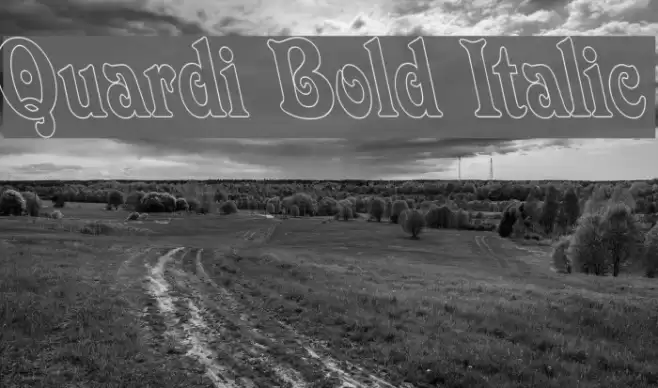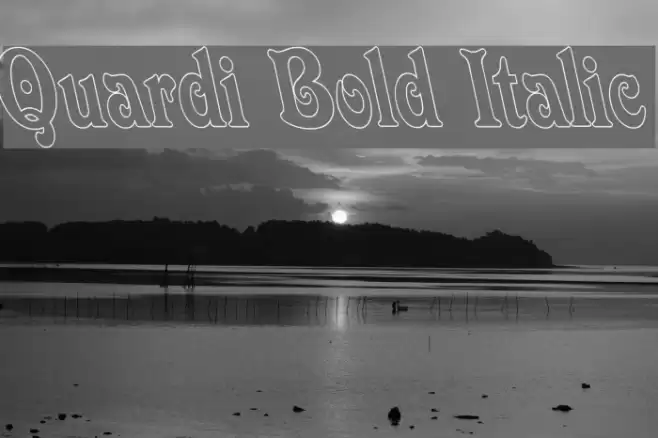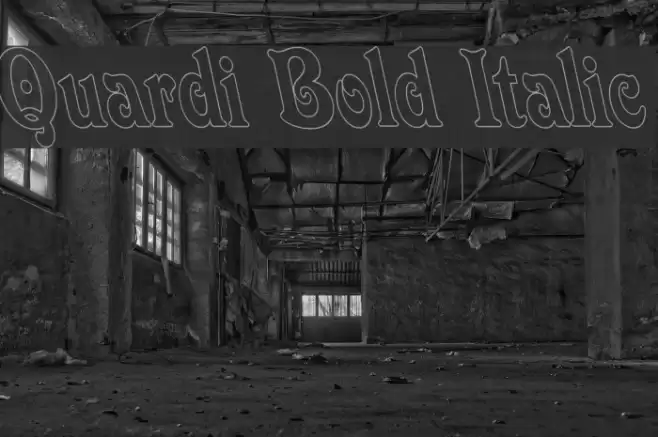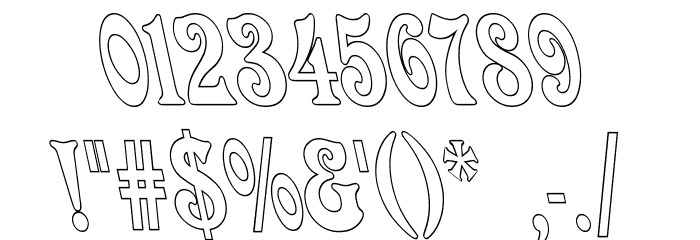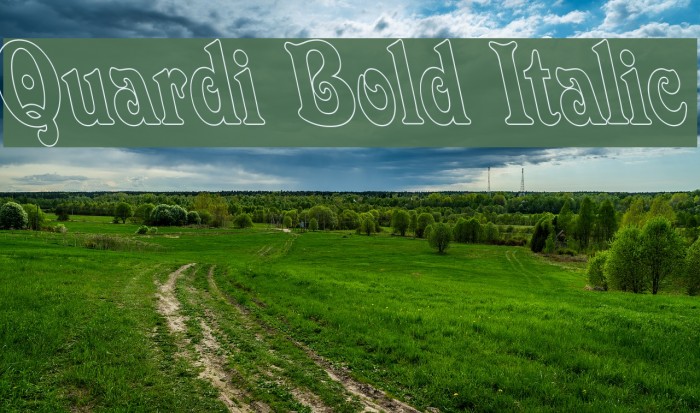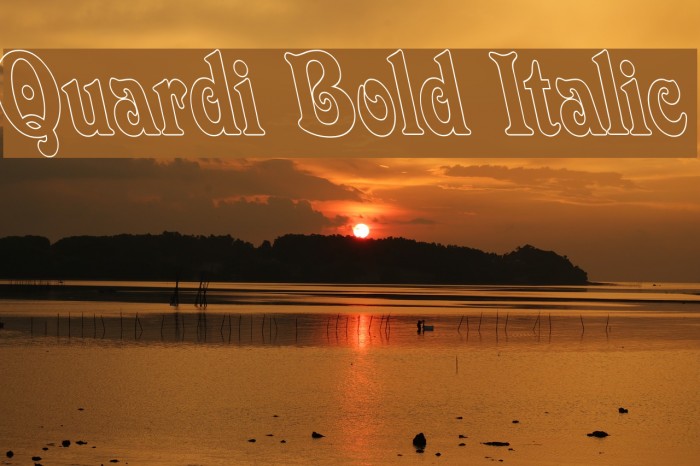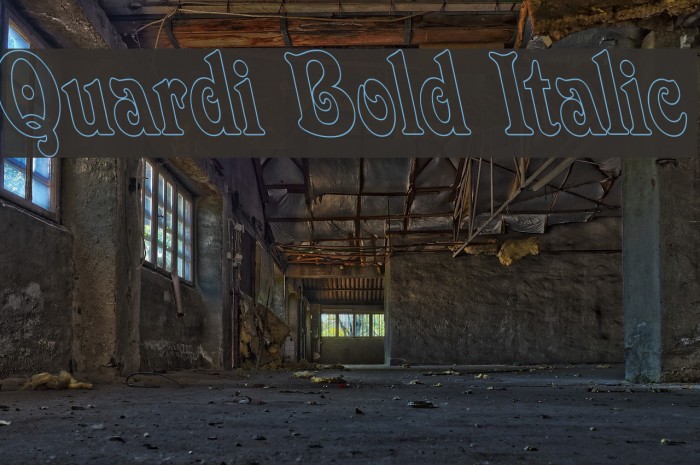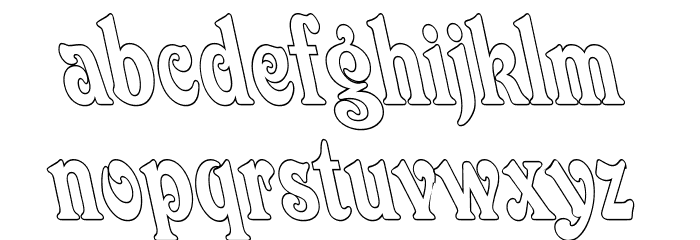
Quardi Bold Italic Font
Quardi Bold Italic Description
This font features a bold and italicized style with a decorative flair. The characters are outlined, creating a hollow effect that adds a unique dimension to the text. The uppercase letters have a strong presence with exaggerated serifs and a slight slant, enhancing the italicized look. Lowercase letters maintain the same decorative style, ensuring consistency throughout. Numbers and special characters follow the same design principles, making them stand out with their bold outlines and artistic curves. This font's playful yet sophisticated appearance makes it suitable for creative projects.
A bold, italicized decorative font with outlined characters and exaggerated serifs from 3D fonts.
- Proposed Projects: Ideal for posters, logos, headlines, and any design requiring a bold, artistic touch.